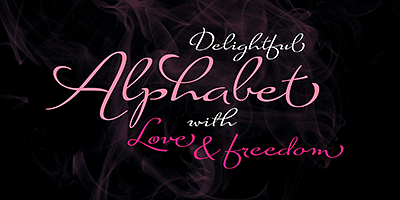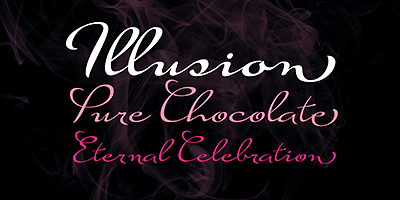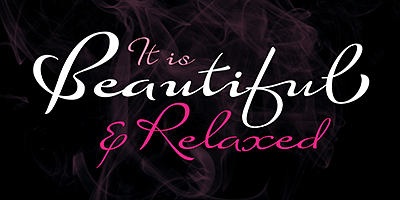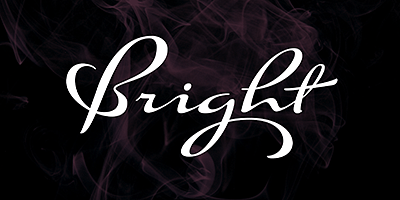
Sun-tanned, smooth, and fluid. Suave Script is based on disconnected calligraphy originating from a how-to lettering book from the 1950s. The uppercase letters dance, and then dance some more - Samba, Tango, Mambo or Candombe - take your pick. The lowercase flows like honey waiting to be licked off the comb. A rare gem - depicting the sweet hustle and bustle of life of a history-rich urbanism. Suave Script is at once fashionable, human, and creative.